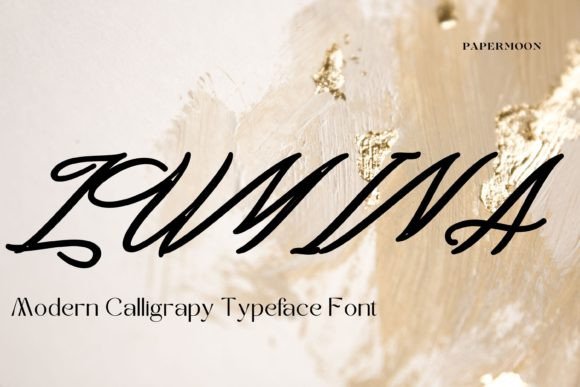
Introducing Lumina Font - The Gateway to Cinematic Elegance
Prepare to be enchanted by Lumina Font, a script font that exudes refinement and creativity. With its roots in classic calligraphy, Lumina gracefully combines the charm of the past with a modern twist. This remarkable font is an invitation to embark on a cinematic journey, one where words dance across the screen with elegance and purpose.
Lumina Font: A Masterpiece of Cinematic Storytelling
Each letterform in Lumina is meticulously crafted, capturing the essence of storytelling. Its smooth lines flow effortlessly, evoking a sense of drama and intrigue. Whether you're crafting a film script, designing posters, or creating social media posts with a cinematic flair, Lumina is your perfect companion.
Experience the Lumina Difference
Choose Lumina for your next project and transcend the boundaries of ordinary. Its captivating charm will elevate your words, transforming them into cinematic masterpieces. Immerse yourself in the world Lumina creates, where every letter is a brushstroke, every sentence a scene, and every project an epic tale waiting to be told.
Lumina Font: Igniting Creativity and Passion
With Lumina Font, your creativity will soar. Feel the pulse of inspiration as you watch your words take on a life of their own. Let Lumina ignite your passion for storytelling, whether you're a seasoned filmmaker, a budding writer, or a creative entrepreneur.